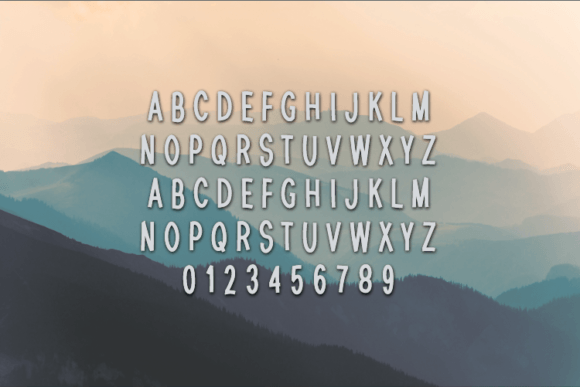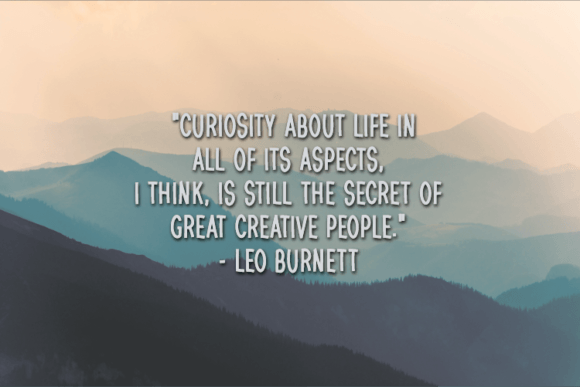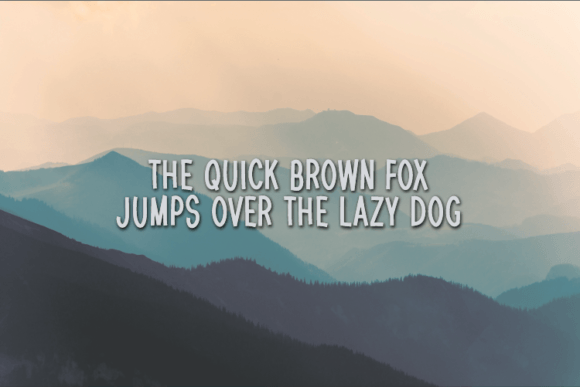
Discover the Charm of Handmade Font: Elevate Your Designs with a Unique Sans Serif Style
In the world of typography, a well-crafted font can make all the difference in elevating your designs from ordinary to extraordinary. If you’re a designer, crafter, or simply someone who appreciates the art of beautiful lettering, you’re in for a treat. Introducing Handmade Font, an interesting and unique sans serif font that’s perfect for quotes, notes, T-shirts, and a multitude of other creative projects. Get ready to fall in love with its incredibly versatile style and use it to create spectacular designs that leave a lasting impression!
The Allure of Handmade Font
Handmade Font is more than just a typographic style – it’s an experience. Its sans serif design gives it a clean and modern look, while its handmade essence infuses it with a touch of warmth and personality. This unique blend makes it an ideal choice for designers and crafters who want to add a human touch to their work. Whether you’re creating a stunning quote, a personalized note, or a stylish T-shirt, Handmade Font is the perfect companion to help you convey your message with flair.
One of the standout features of Handmade Font is its incredible versatility. Its adaptable style allows it to seamlessly integrate into various design projects, from digital applications to print materials. Here are just a few examples of how you can use Handmade Font to elevate your designs:
- Quotes and Inspirational Messages: Use Handmade Font to create visually striking quotes and inspirational messages that resonate with your audience. Its elegant style makes it perfect for social media graphics, posters, and flyers.
- Notes and Journaling: Add a personal touch to your notes and journal entries with Handmade Font. Its unique style makes it ideal for bullet journaling, scrapbooking, and other paper crafting projects.
- T-Shirts and Apparel: Take your t-shirt designs to the next level with Handmade Font. Its clean and modern look makes it perfect for creating stylish and eye-catching apparel that stands out from the crowd.
- Signage and Display Graphics: Use Handmade Font to create stunning signage and display graphics that capture attention. Its versatility makes it suitable for various display applications, from storefront signs to event banners.
Why Choose Handmade Font?
With so many fonts available, why choose Handmade Font? Here are just a few reasons why designers and crafters love working with this unique sans serif font:
- Unique Style: Handmade Font offers a distinctive style that’s both modern and elegant. Its handmade essence sets it apart from other sans serif fonts, making it perfect for designers who want to add a personal touch to their work.
- Ease of Use: Handmade Font is incredibly easy to use, even for those who are new to design. Its clean lines and simple shapes make it effortless to read and work with.
- High Versatility: As mentioned earlier, Handmade Font is incredibly versatile. Its adaptability makes it suitable for various design projects, from digital applications to print materials.
Tips for Getting the Most Out of Handmade Font
To help you get started with Handmade Font, here are a few tips to keep in mind:
- Experiment with Colors: Handmade Font looks stunning in a variety of colors. Experiment with different hues and combinations to find the perfect look for your design.
- Play with Sizes: Don’t be afraid to experiment with different font sizes. Handmade Font looks great in both large and small sizes, making it perfect for a variety of applications.
- Mix and Match: Combine Handmade Font with other fonts and design elements to create visually striking compositions. Its versatility makes it easy to pair with other styles and fonts.
In conclusion, Handmade Font is a unique and versatile sans serif font that’s perfect for designers, crafters, and anyone who appreciates beautiful typography. Its handmade essence infuses it with a touch of warmth and personality, making it an ideal choice for a wide range of creative projects. With its ease of use, high versatility, and stunning style, Handmade Font is sure to become a favorite in your design toolkit. So why wait? Fall in love with Handmade Font and use it to create spectacular designs that leave a lasting impression!